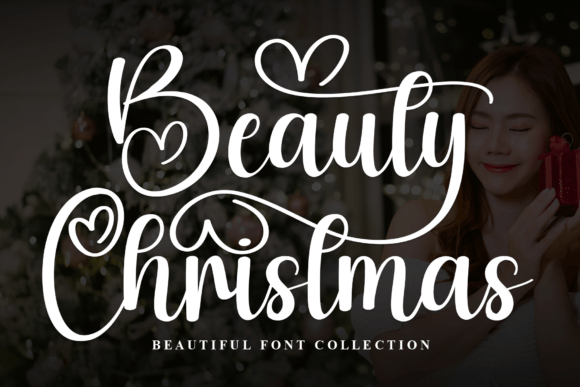
Deck the Halls with a Touch of Whimsy
It’s that time of the year when creativity knows no bounds, and the world is a canvas waiting to be painted with vibrant colors and festive cheer. As designers, we’re always on the lookout for that special something that adds a dash of magic to our projects. For me, it’s the moment when I stumble upon a font that perfectly captures the essence of the season – a font that whispers tales of snowflakes, hot chocolate, and cozy nights by the fireplace.
Enter the Beauty Christmas Font, a sweet and friendly handwritten font that embodies the spirit of the holiday season. This charming font is more than just a design element; it’s a key to unlocking a world of creative possibilities. With its natural and unique style, the Beauty Christmas Font is the perfect companion for designers who crave a touch of whimsy and personality in their work.
Beauty Christmas Font Key Features
- Unique Characteristics: The Beauty Christmas Font features elegant, cursive script with a festive holiday theme, making it perfect for Christmas-themed designs, cards, and packaging.
Designer Review: Beauty Christmas Font
✨ I must say, the Beauty Christmas Font is quite the festive treat. The designer has done an excellent job of creating a unique and playful font that screams holiday cheer. The combination of bold and elegant lines adds a touch of sophistication, while the playful details give it a whimsical feel.
- ✨ Unique and playful design that captures the essence of Christmas.
- ✨ Excellent for titles, headings, and other decorative text.
- ✨ Works well in digital and print media.
- Not ideal for large blocks of text, as it can be overwhelming.
- May not be suitable for formal or professional projects.
Overall, I think the Beauty Christmas Font is a great addition to any designer’s toolbox, especially during the holiday season. It’s perfect for creating festive marketing materials, social media graphics, or even holiday cards. Just remember to use it sparingly and in the right context to avoid overwhelming your audience.
Use the Beauty Christmas Font to add a festive touch to your holiday designs, such as:
- Holiday cards and invitations
- Gift tags and wrapping paper
- Festive social media graphics
- Christmas tree and decoration designs
Remember to experiment with different font sizes, colors, and styles to get the most out of the Beauty Christmas Font.